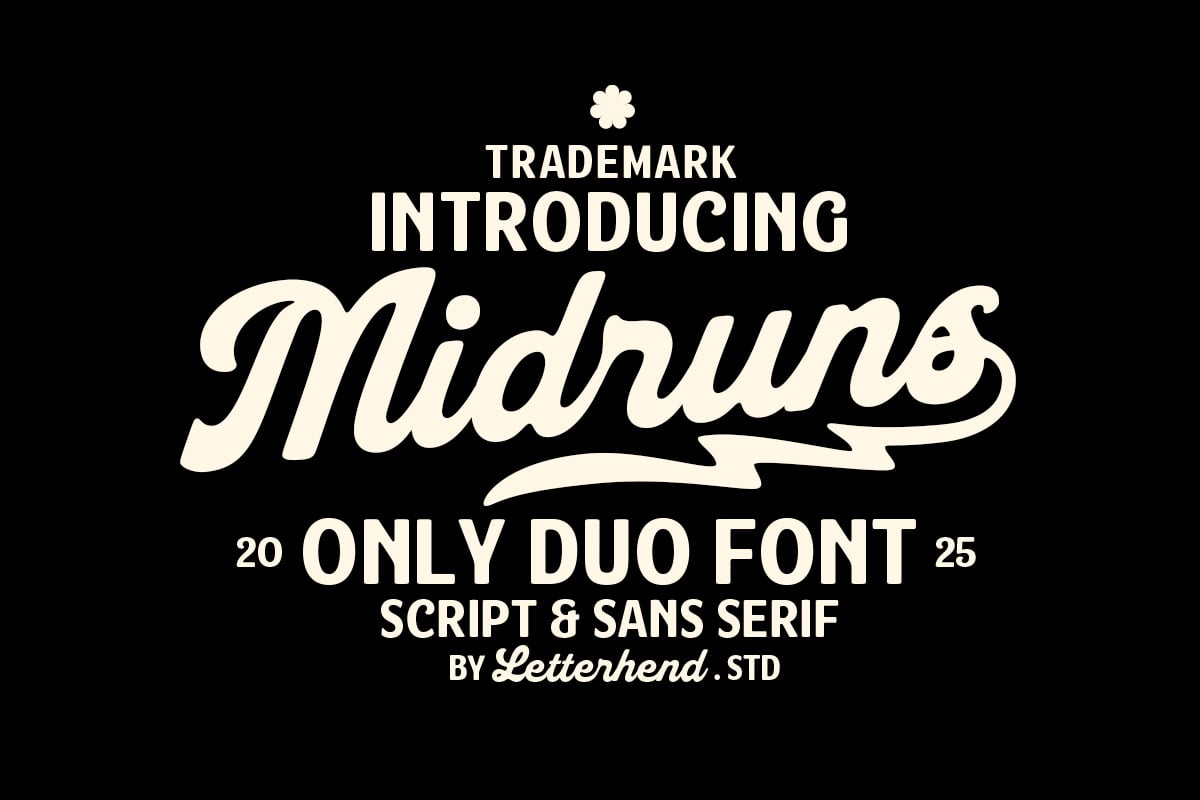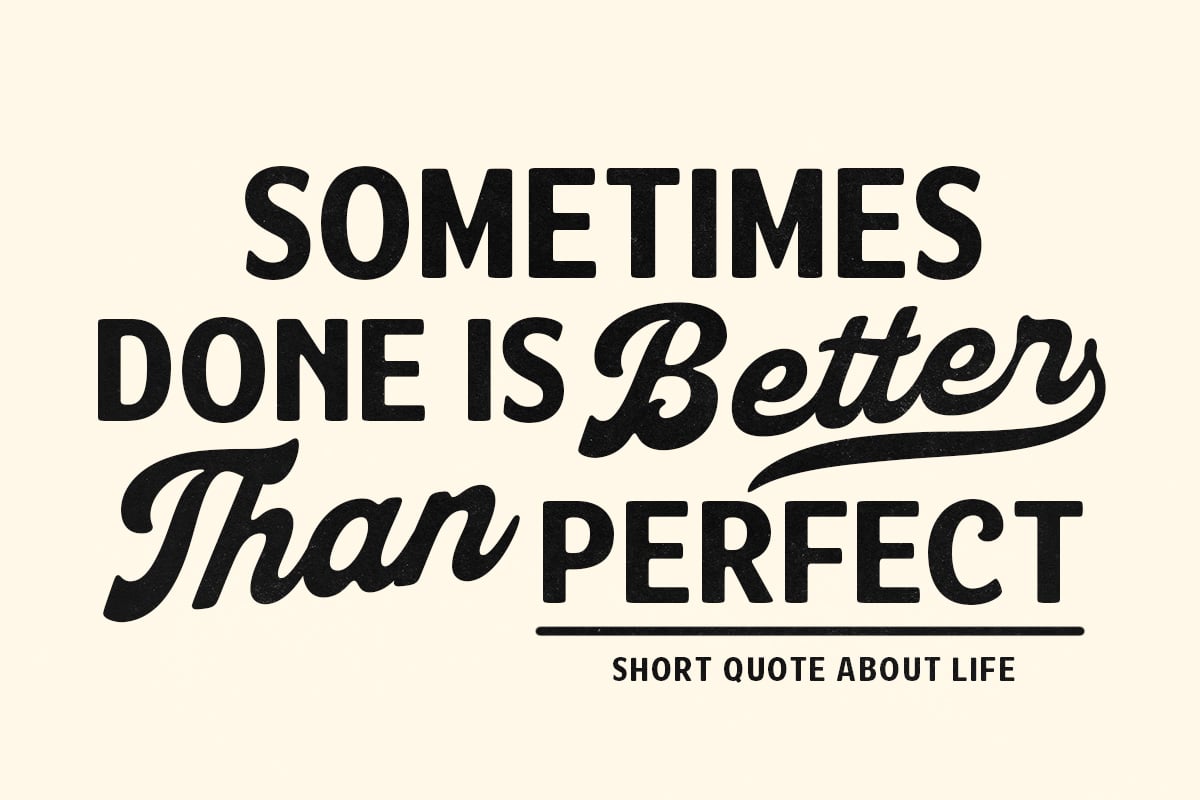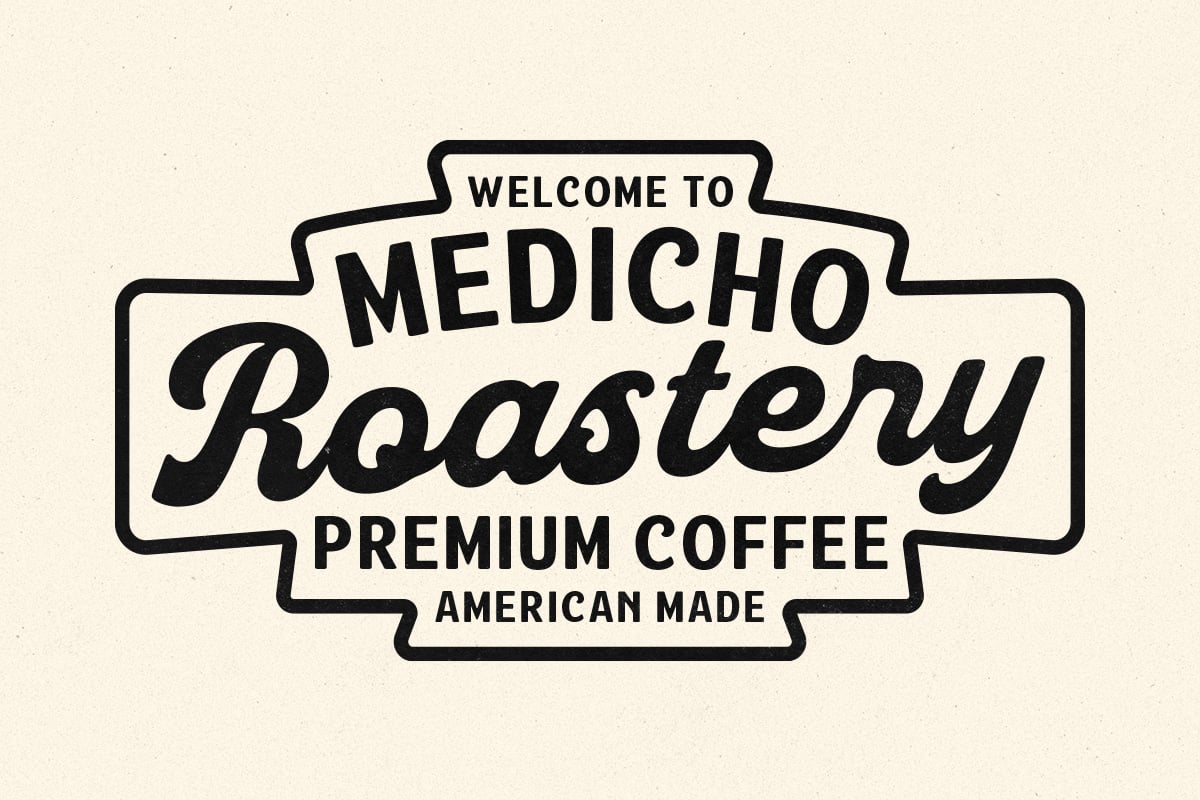
Midruns gives you two fonts that were drawn to sit together. The script is bold and slanted with a long tail swash under the word, the sort of lettering on old baseball shirts and diner signs. The sans is a sturdy, slightly condensed all-rounder for the lines around it.
The specimen’s Medicho Roastery badge is a textbook use: sans on top, script in the middle, small sans underneath. Letterhend Studio supplies both styles in TTF, OTF and WOFF with alternates, ligatures and multilingual support, with the swashes PUA encoded.
Best uses for Midruns
- Coffee shop and roastery badges
- Baseball and sports-style apparel
- Barbershop and diner logos
- Motivational quote posters
- Labels for craft drinks
Midruns already includes its own sans, so you may not need another font. For body text on a website, add Work Sans. If you want a third, condensed face for small print, Oswald fits the vintage feel.
Midruns Font